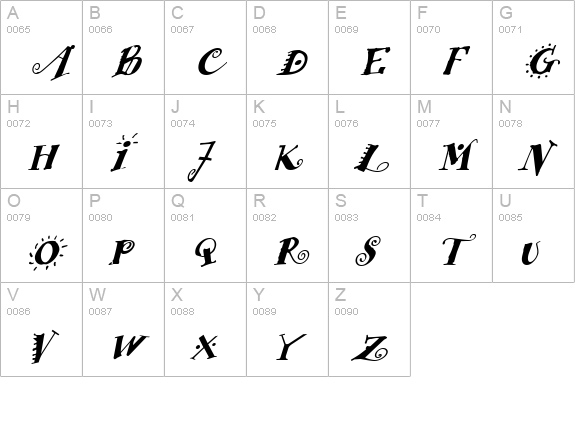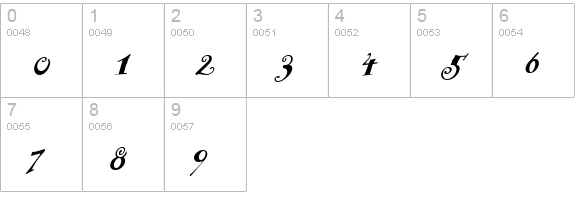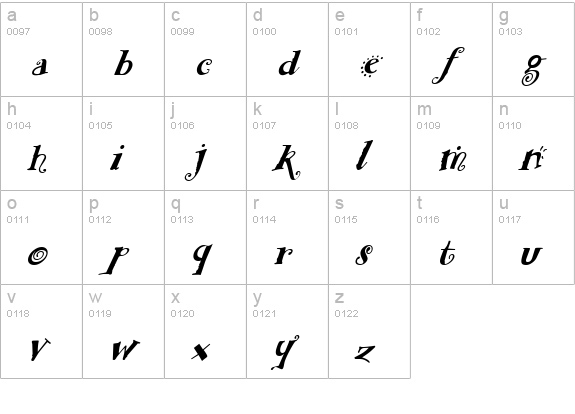
FunstuffXitalic Bold is a strong, high-contrast variant in the FunstuffXitalic typeface family \xE2\x80\x94 well suited to headlines, attention-grabbing titles, and strong calls-to-action.
Introducing FunstuffXitalic Bold font - a playful and eye-catching typeface that adds a touch of whimsy to any project. With its unique design and bold strokes, this font is perfect for creating eye-catching headlines, posters, and logos. Whether you're working on a fun project or looking to add a pop of personality to your designs, FunstuffXitalic Bold has got you covered. The best part? FunstuffXitalic Bold font is completely free to download at FontsMarket.com. So go ahead and unleash your creativity with this delightful typeface without breaking the bank. Get your hands on FunstuffXitalic Bold today and make your designs stand out from the crowd!